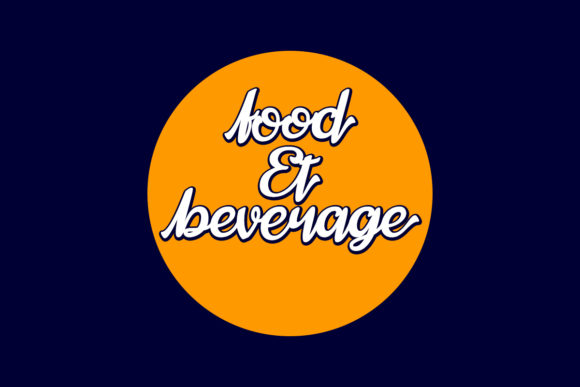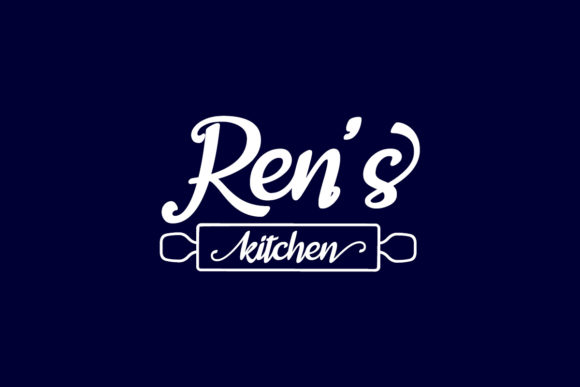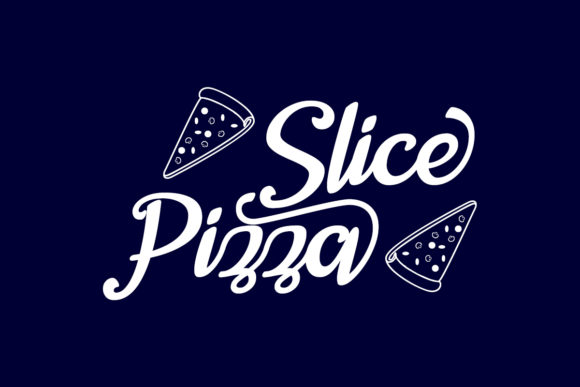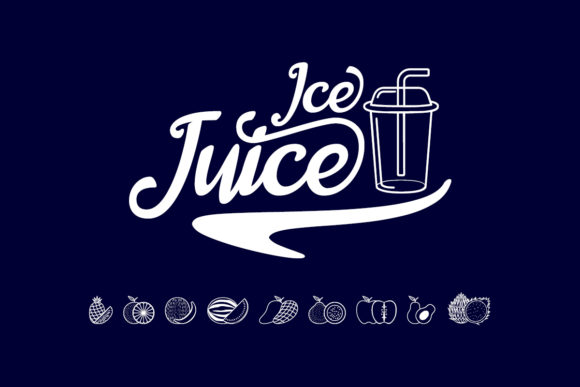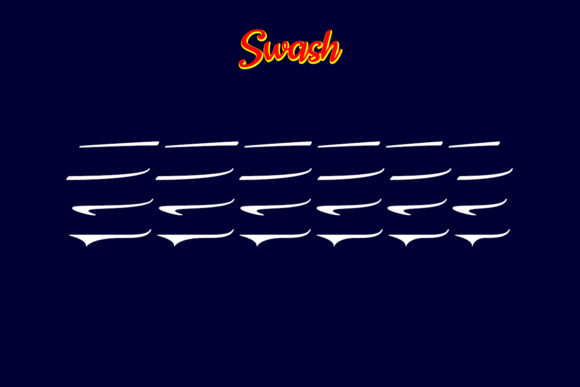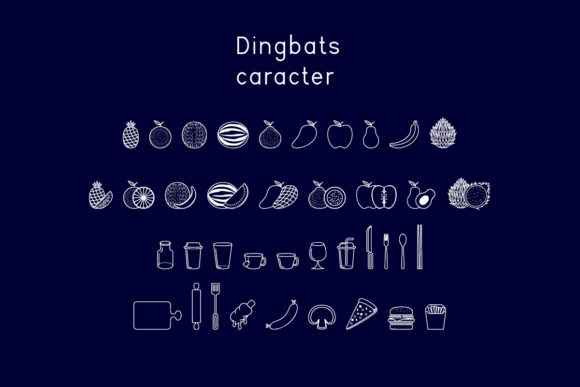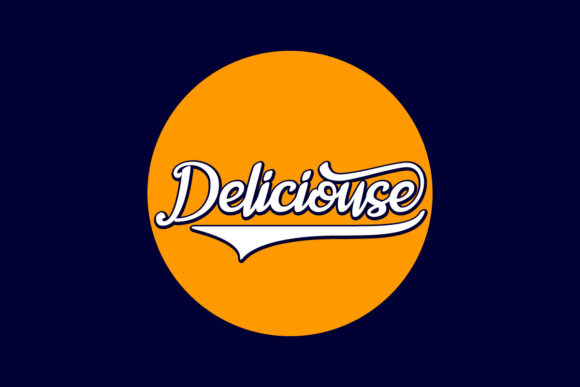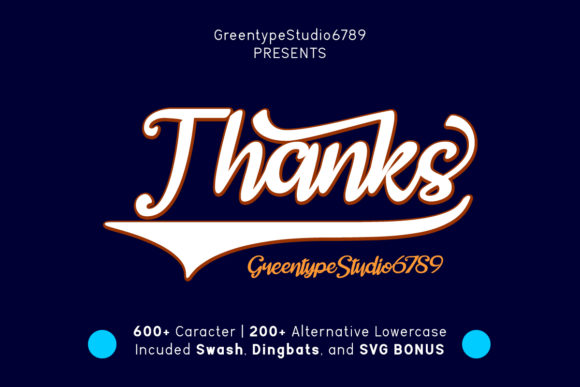
Agartha Font
About Agartha Font
Agartha is a mesmerizing and sophisticated handwritten font that exudes elegance and timelessness in every curve and flourish. With its graceful strokes and impeccable details, Agartha is a true work of art that adds a touch of refined beauty to any design. Its versatility knows no bounds, making it the perfect choice for creating a wide range of spectacular designs that leave a lasting impression.
One of Agartha’s outstanding features is its PUA encoding, which allows you to effortlessly access all of the glyphs and swashes, providing you with a plethora of design possibilities. This font’s flexibility and rich character sets open up endless creative avenues, giving you the freedom to express your unique vision.
The varying baseline of Agartha adds a dynamic and organic feel to the text, lending an air of natural elegance to your projects. The smooth lines and flawless curves create a seamless flow that captures the eye and keeps it entranced. Whether you’re designing wedding invitations, logos, branding materials, social media posts, or any other project, Agartha enhances your work with a touch of sophistication.
Agartha truly shines in wedding invitations, where its timeless beauty sets the perfect tone for a romantic and memorable celebration. Its graceful appearance elevates the invitations to an art form, creating a sense of luxury and refinement that guests will cherish.
When used in logos and branding, Agartha infuses the design with a sense of class and sophistication, making the brand feel approachable yet upscale. It leaves a lasting impression on customers, creating a connection that is both refined and welcoming.
Social media posts adorned with Agartha’s elegant script are bound to capture attention and engagement. Its unique style stands out among the crowd, making each post a captivating visual experience for followers.
Agartha’s stunning alternates and swashes add a touch of flair and uniqueness to any project. From decorative elements to eye-catching titles, this font brings a touch of artistry and creativity to every design.
In conclusion, Agartha is an exquisite and timeless handwritten font that elevates every design it touches. With its PUA encoding, varying baseline, smooth lines, and stunning alternates, it offers unparalleled versatility and creative potential. Fall in love with Agartha and immerse yourself in the world of sophisticated elegance as you create spectacular designs that leave a lasting impact.